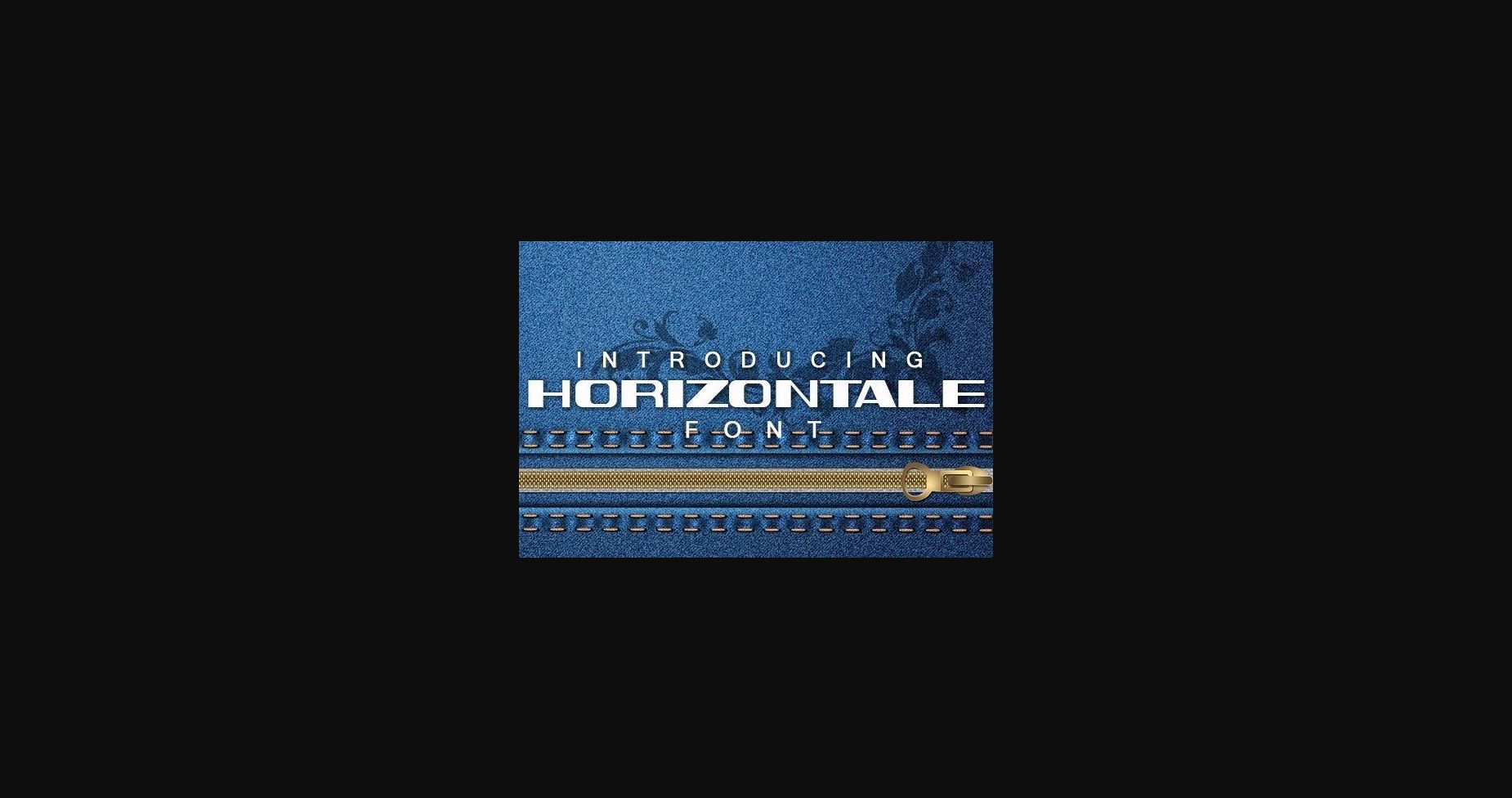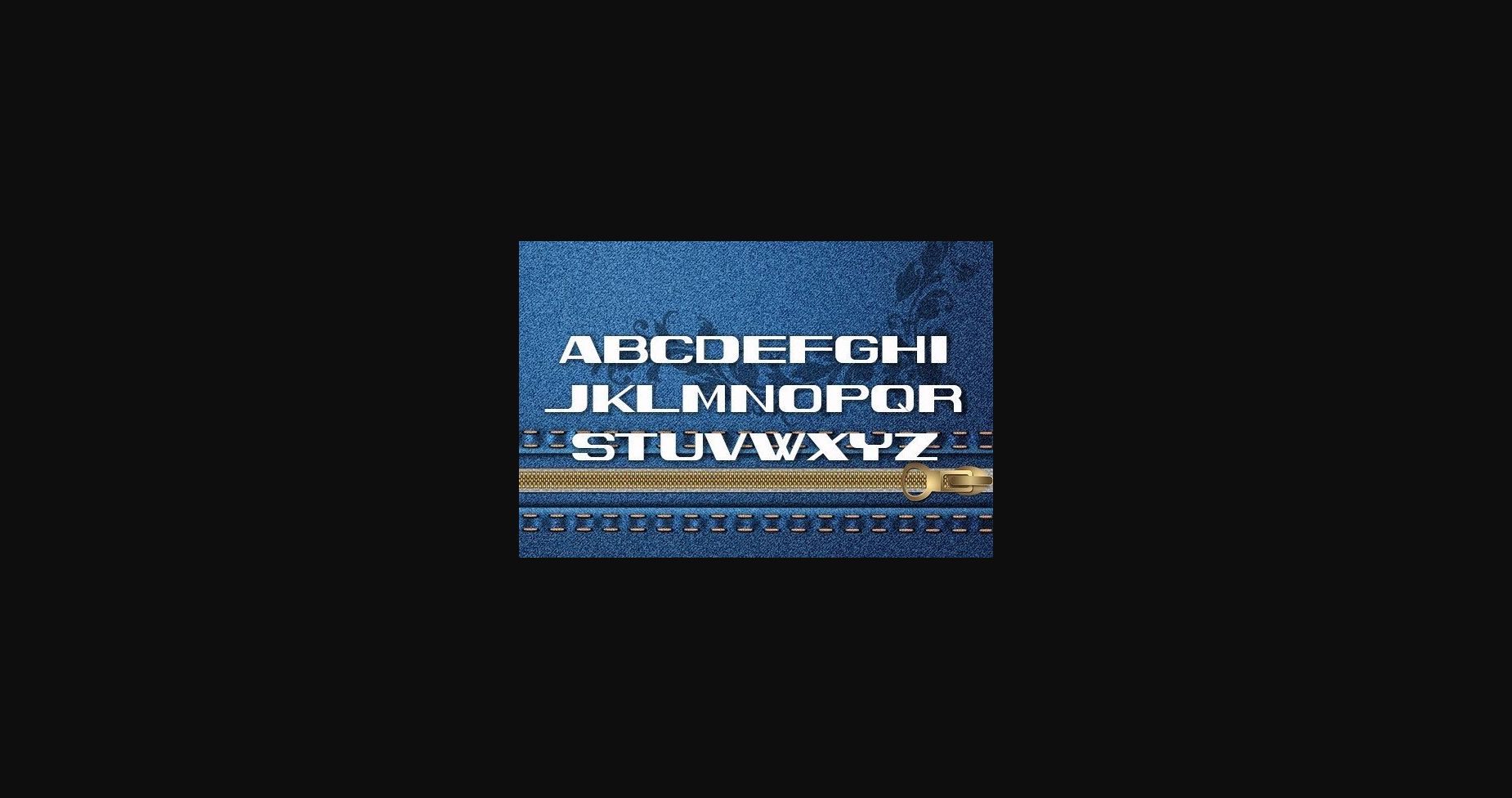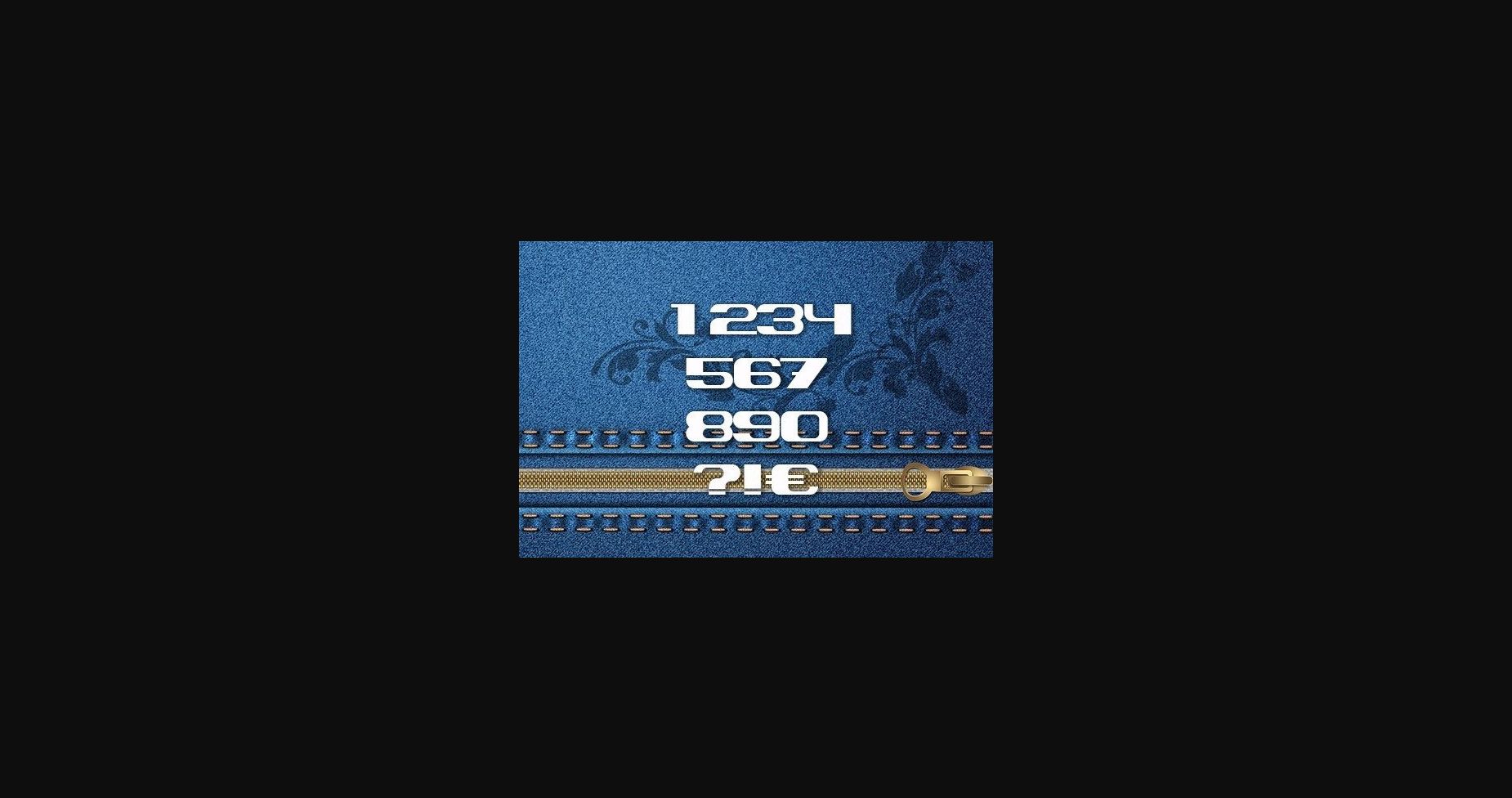
About Horizontale Font
Horizontale is a modern and neat sans serif font. Its versatility makes it perfect for a wide pool of designs, elevating them to the highest levels. Add this font to your favorite creative ideas, and notice how it makes them come alive!